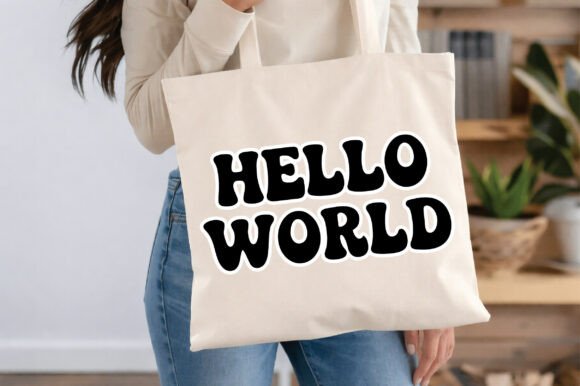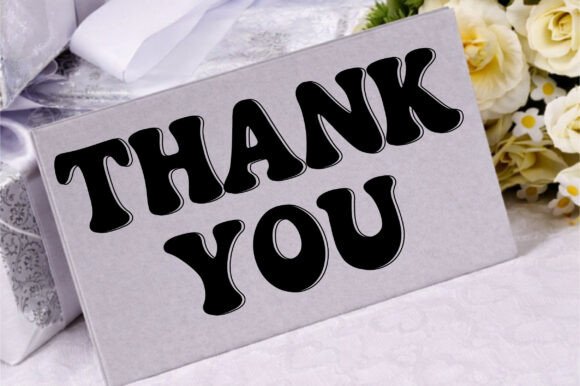
Introduction to Retro Kindly Font
Remember the thrill of rummaging through your grandmother’s attic, uncovering vintage posters and dusty design relics from a bygone era? For designers, there’s something undeniably magical about discovering a font that perfectly captures the essence of a bygone age. And for those in search of that perfect retro vibe, we’re excited to introduce you to the Retro Kindly Font – a bold, groovy display font that’s sure to transport your designs back to the funky, carefree days of the 1970s.
Whether you’re working on a creative project that demands a touch of nostalgia or simply looking to elevate your designs with a unique, eye-catching style, the Retro Kindly Font is an invaluable design resource. Its chunky shapes and playful curves are carefully crafted to evoke a warm, retro personality that’s sure to leave a lasting impression. And with its high-quality design, you can rest assured that your project will stand out from the crowd.
Key Features of Retro Kindly Font
- Unique, hand-drawn design with a touch of nostalgia, perfect for creative projects requiring a vintage feel.
- High-quality, vector-based font with a transparent background, ideal for use on various design resources.
- Includes a range of characters, including uppercase and lowercase letters, numbers, and punctuation marks, making it a comprehensive design resource.
- Perfect for designers, artists, and creatives seeking a unique, high-quality font for their next project, from print to digital media.
Honest Review: Retro Kindly Font
As a designer, I’m always on the lookout for high-quality design resources that can elevate my creative projects. Recently, I had the chance to work with the Retro Kindly Font, and I must say it’s a great addition to any design arsenal.
- ✨ Unique aesthetic: The Retro Kindly Font has a distinct, nostalgic feel that’s perfect for vintage-inspired designs.
- ✨ High quality: The font is crisp and clear, with smooth lines and well-defined characters.
- ⚠️ Limited language support: The font may not be compatible with all languages, which could be a issue for global design projects.
- ⚠️ Not ideal for small text: The font may be too large or cumbersome for small text applications, such as body copy.
Overall, the Retro Kindly Font is a solid choice for designers looking for a high-quality, unique font for their creative projects. While it may have some limitations, its strengths make it a valuable addition to any design resource collection.
Retro Kindly Font
The Retro Kindly Font is a high-quality design resource perfect for adding a touch of nostalgia to your creative project. With its transparent background and elegant design, it’s ideal for a variety of applications.
Tips for Getting the Most Out of Retro Kindly Font
For the best results, use the Retro Kindly Font in conjunction with a high-quality image or design element.
Experiment with different font sizes and styles to create a unique look.
The Retro Kindly Font is perfect for:
Wedding invitations and stationery.
Vintage-inspired advertisements and marketing materials.
Photography and art projects.
Alternatives to Retro Kindly Font
Pacifico is a beautiful, elegant script font ideal for design projects requiring a touch of sophistication. It’s perfect for wedding invitations, branding materials, and other creative projects where a high-quality, handwritten look is desired.
Compared to Retro Kindly Font, Pacifico has a more refined and polished feel, making it suitable for a wider range of design applications.